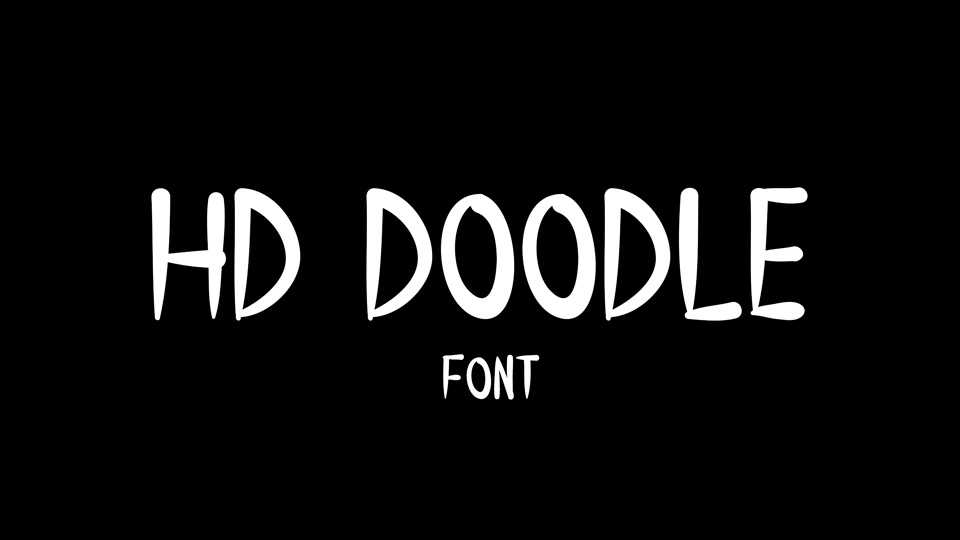
Download HD Doodle font, a fun and simple handwritten all caps font. HD Doodle font perfectly fits for crafts, comics, kids products, cards, posters and more.